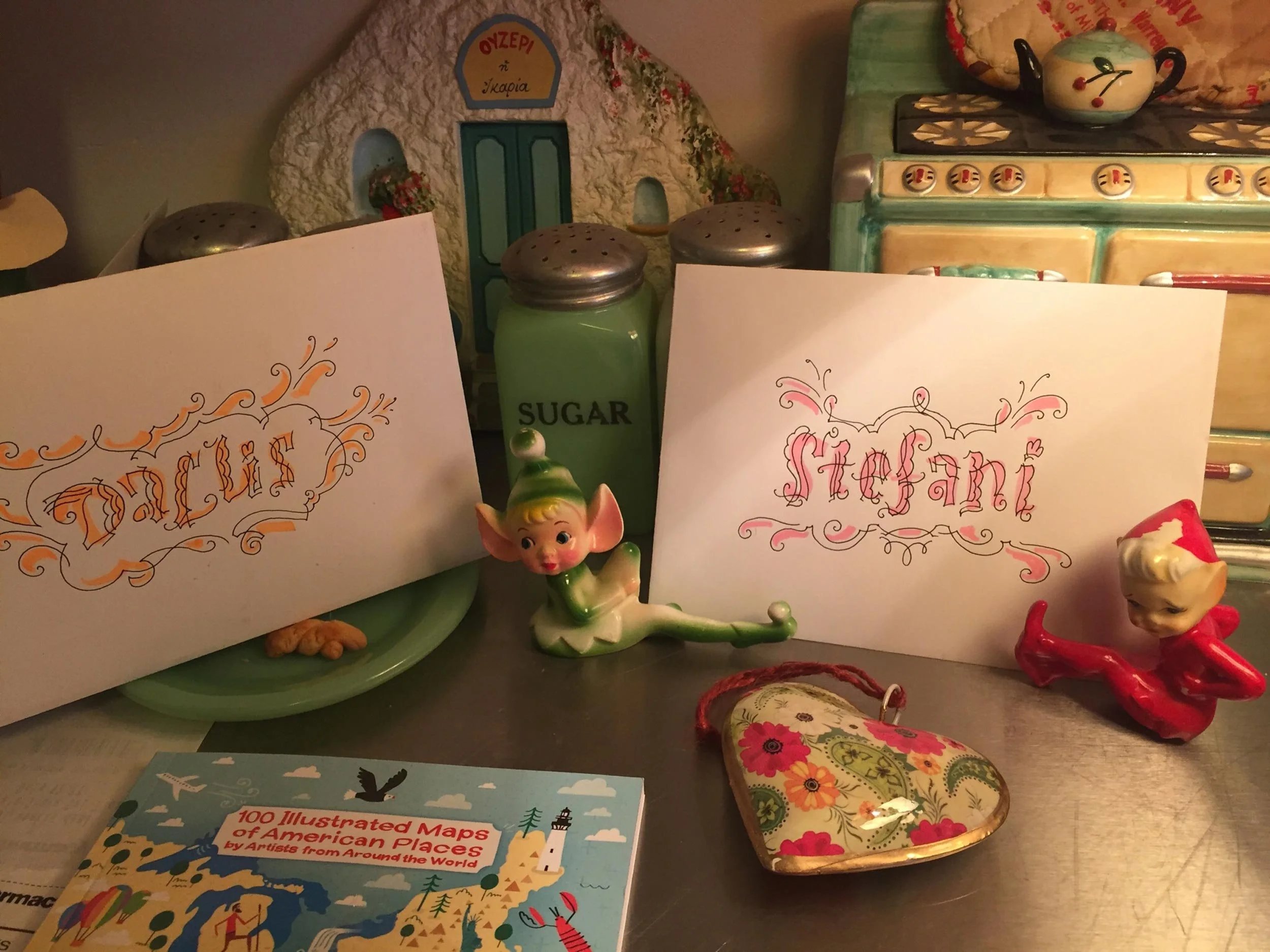
In 2010 I committed to hand lettering for my new blog called Handlettering Cite. I designed posts with thin mono weight markers and pens. Of the course of the blog I switched to a pointed pen which brought a new visual effect to my lettering.
In 2015 I jumped into the challenge by the 100 Day Project. I became an overachiever. I hand lettered over 100 names of family and friends in 100 days. I designed letters with unconventional shapes and flourishes. I think of them as unconventional display letters.
I started the 100 Day Project during a typically boring office meeting. Using a ballpoint pen and a notebook with ruled pages I designed the names of the people in the meeting.
At home in a drawer I had a stash of pens and newsprint notepads I bought in Japan. I treated these office supply souvenirs like rare jewels which is to say I wouldn’t use them until I had the “perfect” project. Finally I had the project. I explored ways to create letters with pens that had really small tips. With each name my lettering became more expressive, more personal. I loved this work. I would get lost in the process and the effort became a mediation.
Over the years I adapted and simplified my lettering style but kept the display lettering spirit. Today I put my lettering on envelopes of birthday and graduation cards. I keep a sketchbook of expressive display letters.
Muji Pen
Ballpoint Pen
Highlighter
Color Pencil
Sketchbook of newsprint with storyboard panels